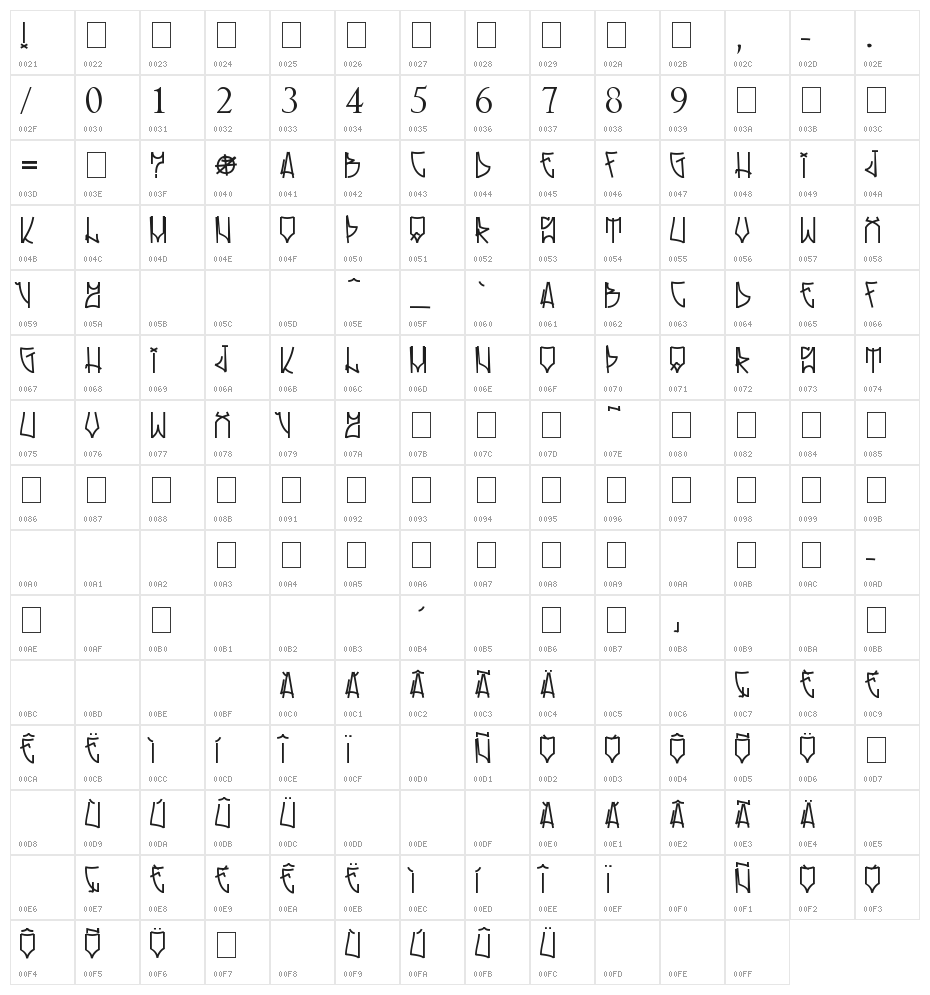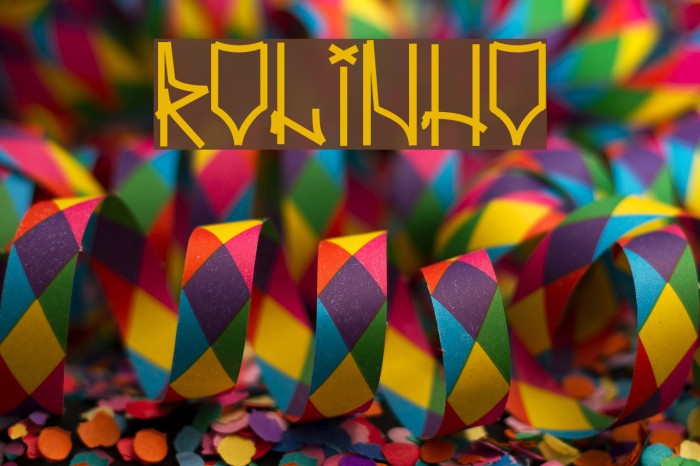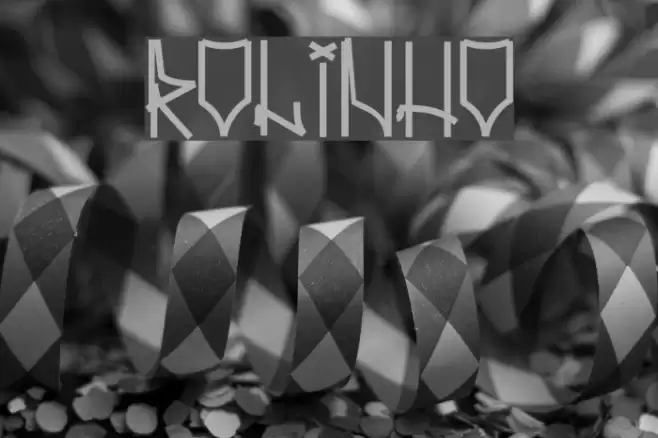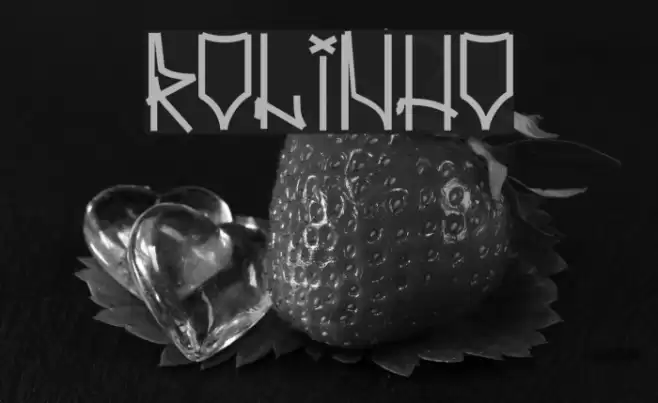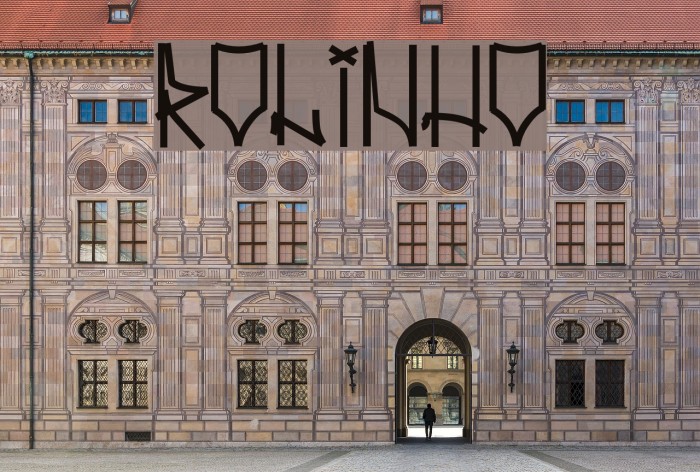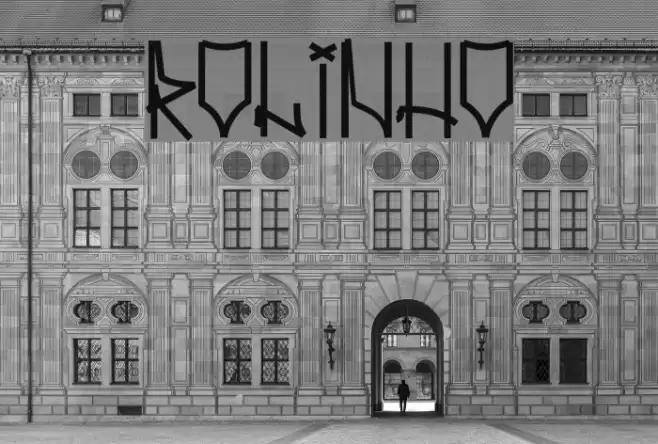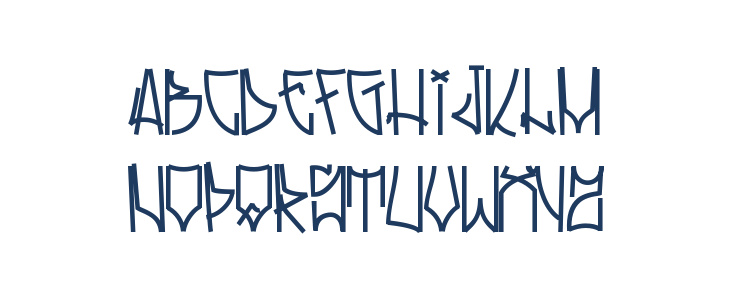
Rolinho Font
Rolinho Description
This font features a unique and artistic design, characterized by sharp, angular lines and a bold presence. The uppercase letters exhibit a distinct geometric style, with some characters incorporating pointed edges and others featuring curved elements. The lowercase letters maintain a similar aesthetic, ensuring consistency throughout the typeface. Numbers are designed with a modern flair, combining both rounded and angular elements. Special characters are crafted to match the overall style, adding to the font's cohesive appearance. This font stands out with its decorative and edgy look, making it suitable for creative and bold design projects.